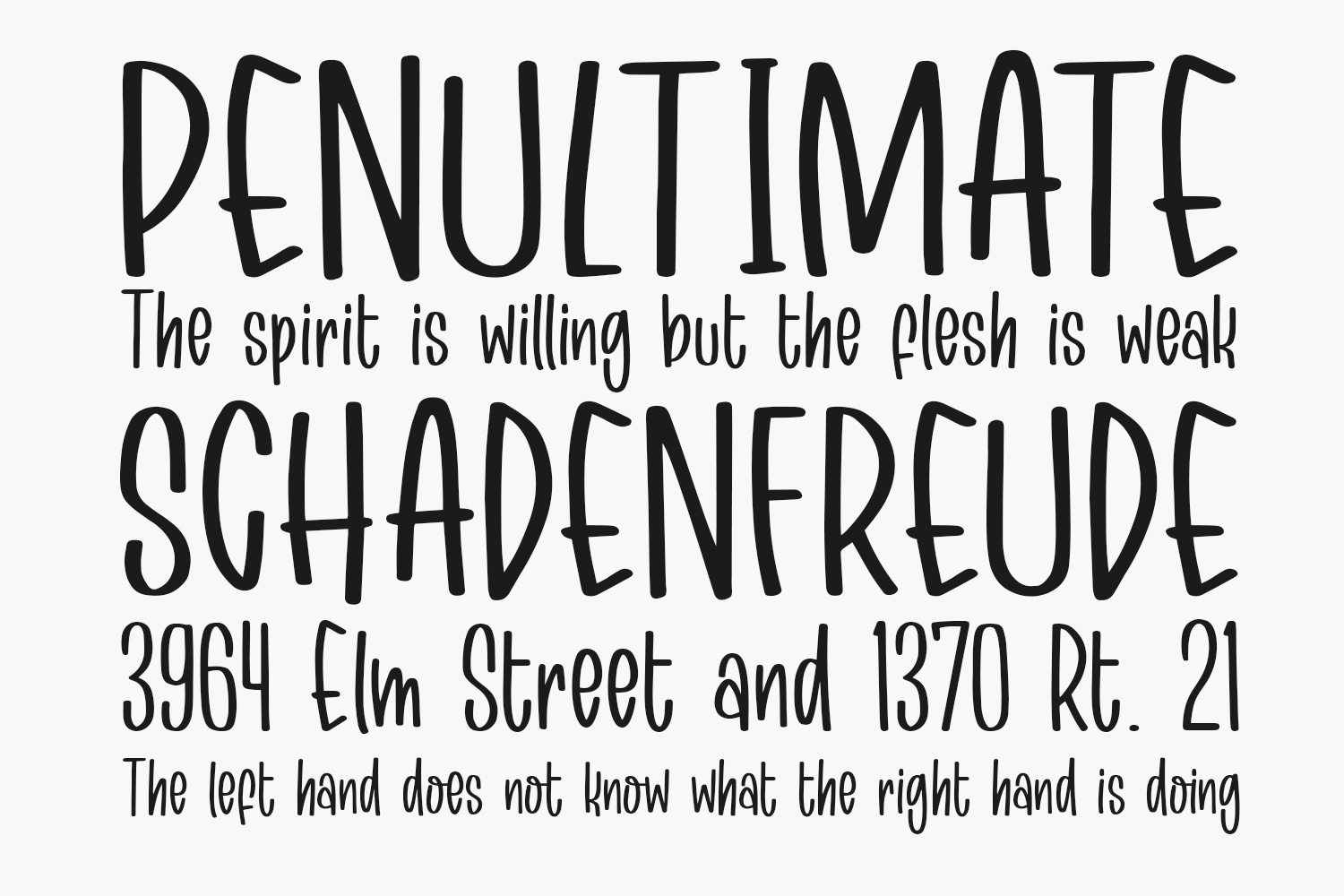
Unicorn Mermaid Free Font is a sweet and friendly handwritten font. Its natural and unique style makes it incredibly fitting to a large pool of designs. The only limit is your imagination. Unicorn Mermaid Free Font was designed by Subectype & Orenari and is free for personal use only. Please purchase the full version for commercial use.